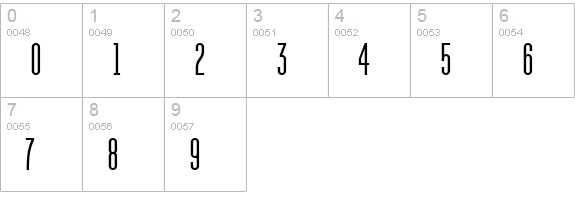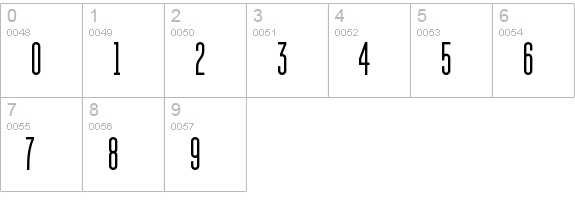
Pakt Condensed SemiBold Font Details
Pakt Condensed SemiBold is a sub-bold, structured, condensed-width variant in the Pakt typeface family \xE2\x80\x94 well suited to sub-headlines and emphasised passages.
Pakt Condensed SemiBold font is a versatile and modern typeface that exudes confidence and sophistication. Its condensed design allows for maximum impact while maintaining legibility, making it perfect for headlines, logos, and branding materials. With its bold strokes and strong presence, Pakt Condensed SemiBold commands attention and delivers a powerful message. The clean and sleek lines of this font give it a contemporary edge, making it suitable for a wide range of design projects. One of the best things about Pakt Condensed SemiBold font is that it is freely available to download at FontsMarket.com. This means that you can add this exceptional typeface to your font library without any cost, making it an excellent choice for designers on a budget or those looking to expand their collection. Whether you're creating a striking poster, a captivating website, or an eye-catching advertisement, Pakt Condensed SemiBold font will undoubtedly make a statement. Its bold and commanding presence will grab the viewer's attention and leave a lasting impression. Enhance your design projects with the elegance and strength of Pakt Condensed SemiBold font. Download it for free at FontsMarket.com and let your creativity soar with this exceptional typeface.